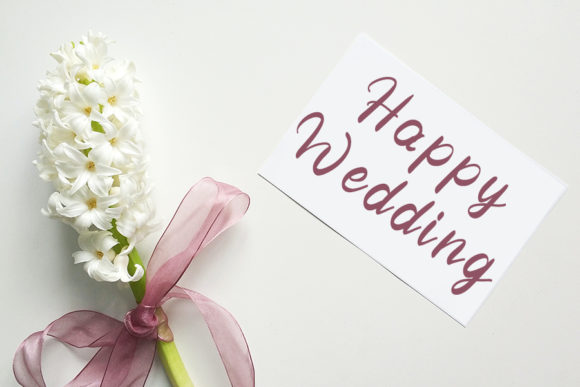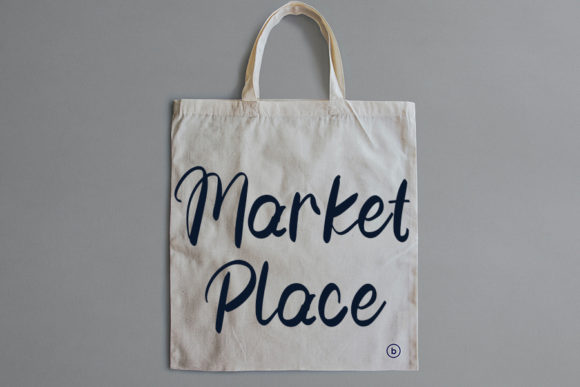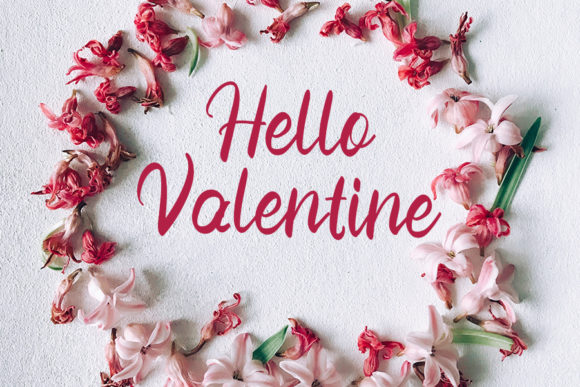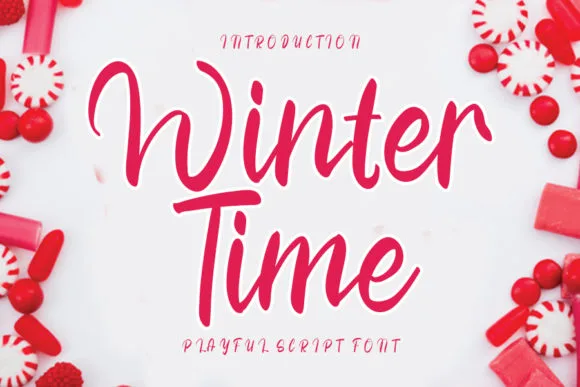
Script Fonts Winter Time Font 0 149 FacebookTwitterPinterestWhatsApp 1 of 5 Winter Time Font Poster 2... Winter Time Font Poster 3... Winter Time Font Poster 4... Winter Time Font Poster 5... About Winter Time Font Winter Time is a modern and stylish script font. It has beautiful and well balanced characters and as a result, it matches a wide pool of designs. Add it to your most creative ideas and notice how it makes them come alive! DOWNLOAD NOW